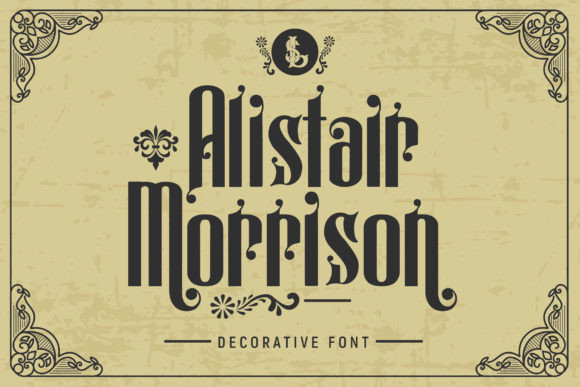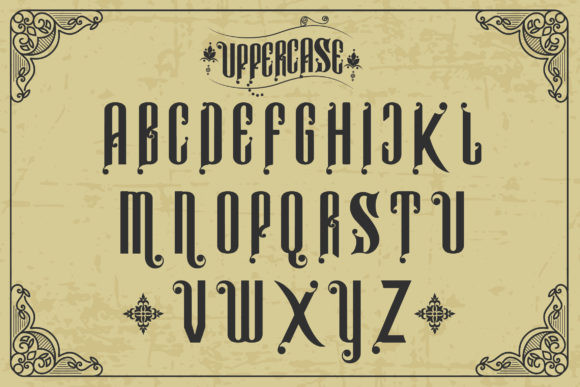
Alistair Morrison simplifies elegance into one truly outstanding display font. Use it to add that special retro touch to any design idea you can think of!
Alistair Morrison Font